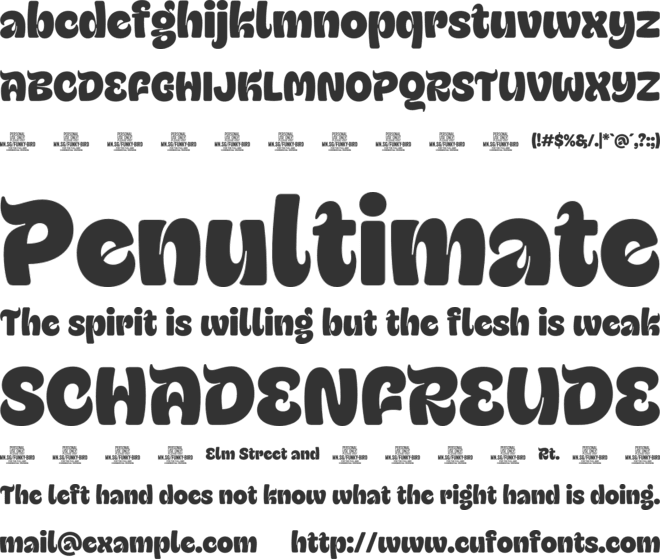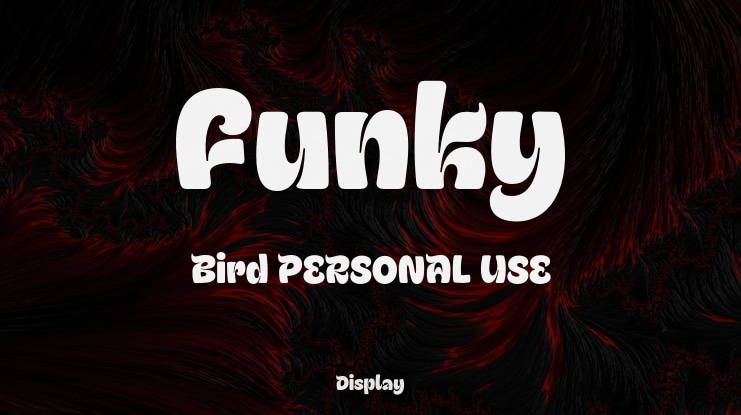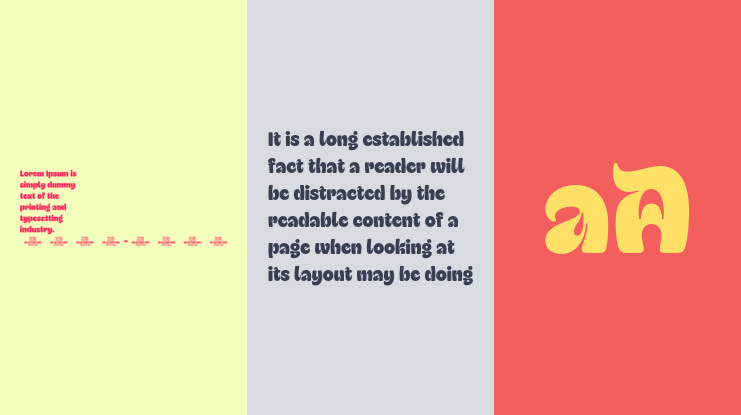
Funky Bird PERSONAL USE Font
Mans Greback
NOTE: This font is for PERSONAL USE ONLY!To purchase a commercial license, visit:https://www.mansgreback.com/product/funky-birdFunky Bird is groovy display font oozing with playful charm.With bulbous curves and bouncy shapes, this typeface has a warm and inviting personalityUse for a friendly bakery logo, or the title of a kids' book.For questions, please visit www.mn.sg/faq